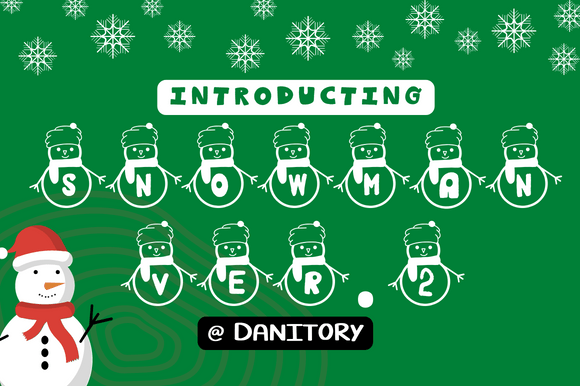
Immerse yourself in the enchanting world of Snowman Version Two Font, a captivating decorative font crafted specifically for the joyous Christmas season. Let the magic of this font dance across your crafty creations, transforming them into dazzling works of art.
With Snowman Version Two, you'll embark on a whimsical journey filled with festive cheer and heartwarming memories. Its delicate strokes and playful characters will bring your Christmas cards to life, evoking a sense of wonder and nostalgia. Each letter dances merrily on the page, spreading the joy of the season.
Feel the warmth of the yuletide embrace as you witness the magic of Snowman Version Two unfold. Its intricate details and charming style will add a touch of enchantment to your designs, making them irresistible to the eyes. Let this font capture the essence of the season and bring your festive visions to life.